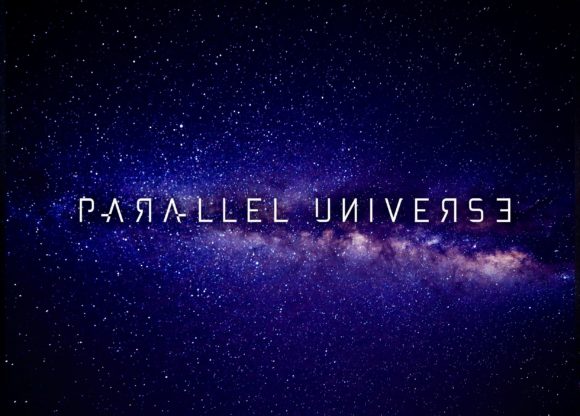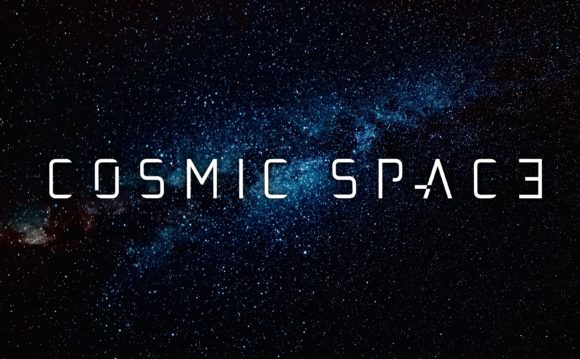
Introducing Andromeda Mirror Font: A Futuristic and Minimal Sans Serif Font
In the vast expanse of the digital design world, typography plays a crucial role in conveying messages, expressing emotions, and creating visual identities. For designers and crafters seeking a font that embodies the essence of modernity and sophistication, Andromeda Mirror Font is an exceptional choice. Inspired by the emptiness of space, this futuristic and minimal sans serif font is designed to elevate your projects with its clean and elegant aesthetic.
The Inspiration Behind Andromeda Mirror Font
The Andromeda Mirror Font draws its inspiration from the mysteries of space, particularly the Andromeda galaxy, which has long been a subject of fascination for astronomers and space enthusiasts alike. The font’s creator aimed to capture the essence of space’s emptiness and translate it into a typographic form that is both minimalist and impactful. The result is a font that exudes a sense of futurism, making it perfect for projects that require a forward-thinking approach.
Key Features of Andromeda Mirror Font
• Clean and Elegant Design: Andromeda Mirror boasts a clean and elegant design that ensures versatility across various applications. Its sans serif structure provides a modern look that can seamlessly integrate into digital platforms, print materials, and more.
• Minimalist Aesthetic: The minimalist approach of Andromeda Mirror Font makes it an excellent choice for designers who prefer simplicity and clarity in their typography. This aesthetic allows the font to complement a wide range of design elements without overpowering them.
• Futuristic Appeal: With its space-inspired design, Andromeda Mirror Font adds a futuristic touch to any project. This feature is particularly beneficial for brands and projects looking to convey innovation, technology, or forward-thinking values.
• Versatility: One of the standout qualities of Andromeda Mirror Font is its versatility. It can be used in a variety of projects, from digital interfaces and branding to editorial content and craft projects, making it a valuable addition to any designer’s toolkit.
Use Cases for Andromeda Mirror Font
The applications of Andromeda Mirror Font are vast and varied. Here are some scenarios where this font truly shines:
• Digital Product Design: For UI/UX designers, Andromeda Mirror Font offers a modern and clean typography solution that enhances user experience and interface aesthetics.
• Branding and Logo Design: The futuristic appeal of this font makes it an excellent choice for tech startups, innovative brands, and any company looking to project a modern and progressive image.
• Marketing and Advertising: In marketing materials, the font’s clarity and elegance help in creating compelling and professional-looking campaigns.
• Crafting and DIY Projects: For crafters and DIY enthusiasts, Andromeda Mirror Font can add a personalized and contemporary touch to handmade cards, journals, and other craft projects.
Andromeda Mirror Font is a remarkable addition to the world of typography, offering a unique blend of futurism, minimalism, and elegance. Its versatility and wide range of applications make it an invaluable resource for designers and crafters alike. Whether you’re working on a digital project, crafting a brand identity, or simply exploring new typography options, Andromeda Mirror Font is sure to inspire and elevate your creative endeavors.